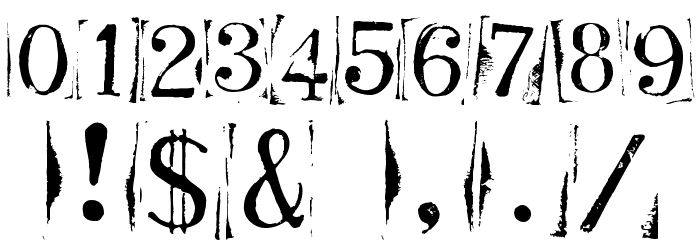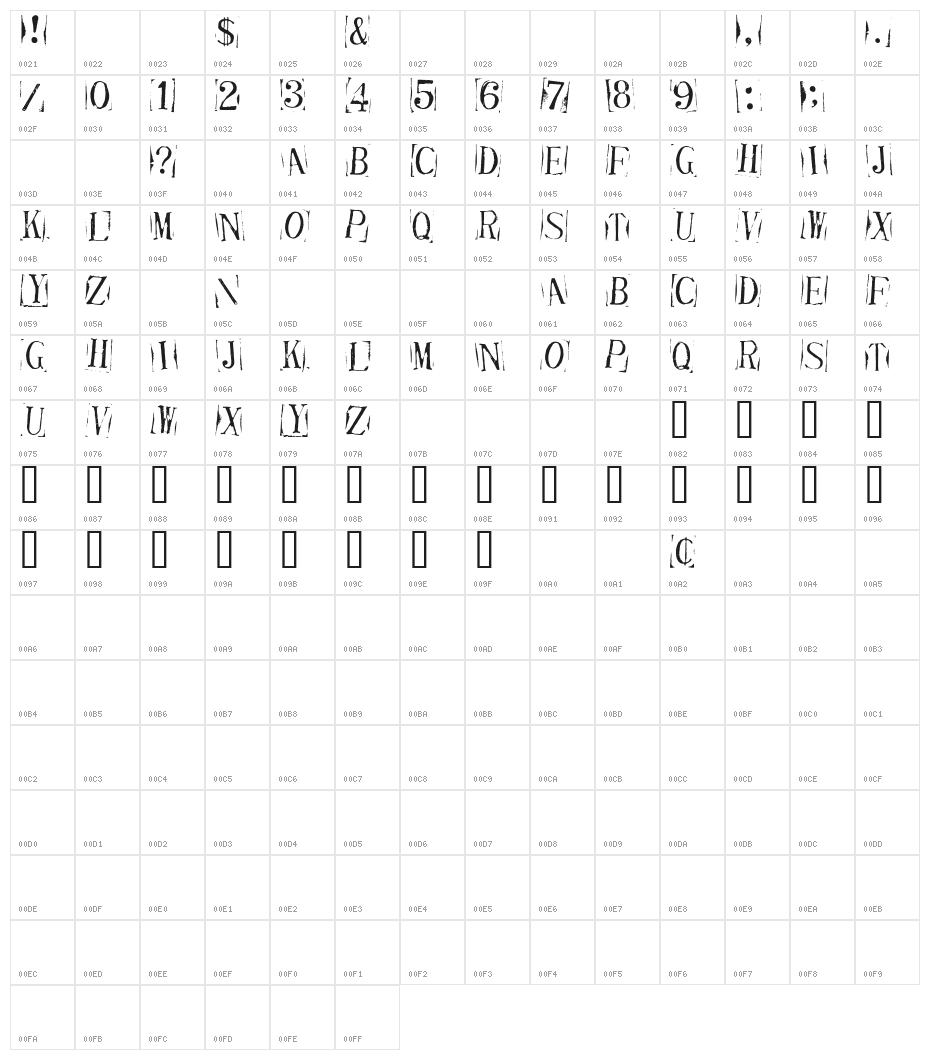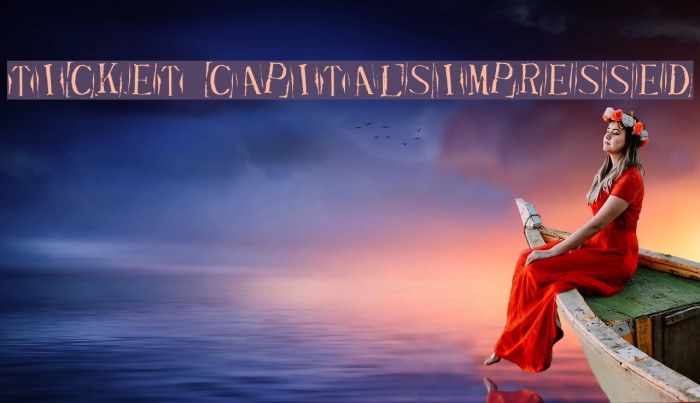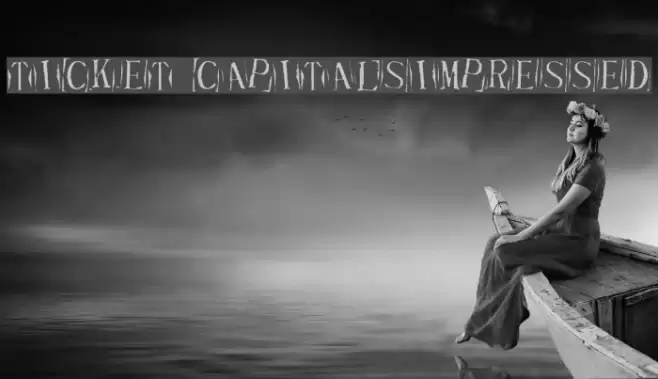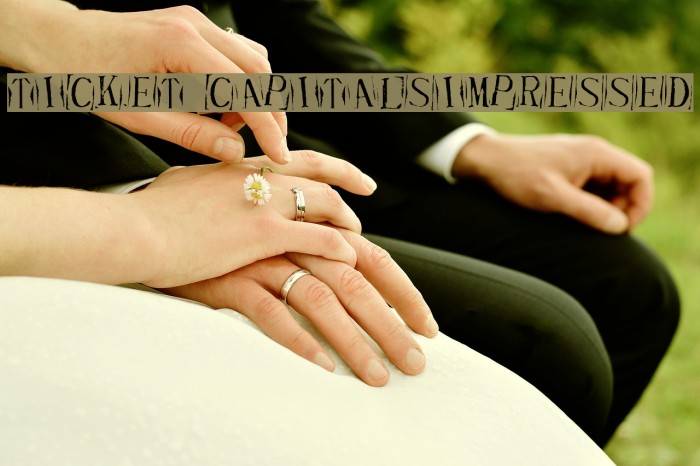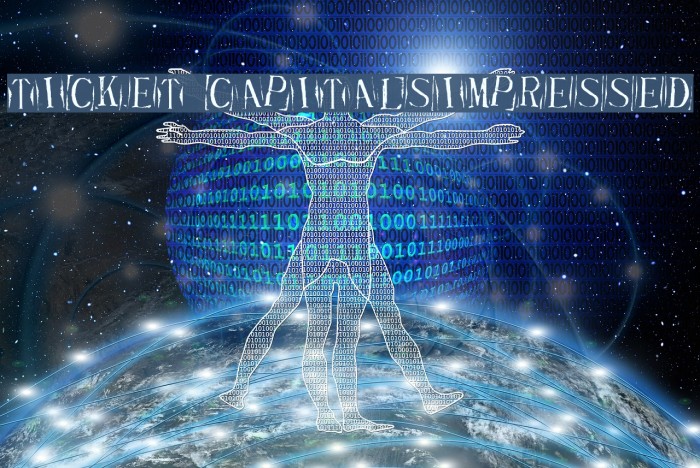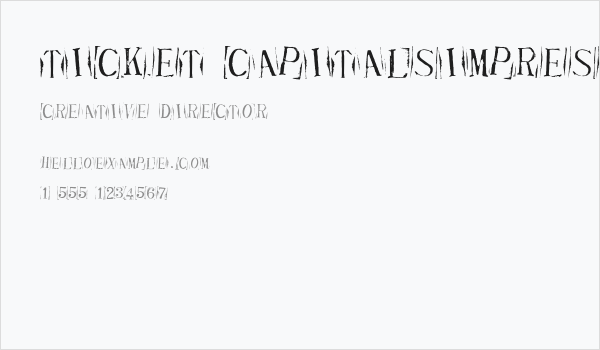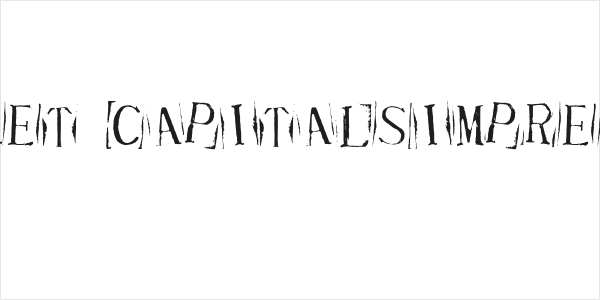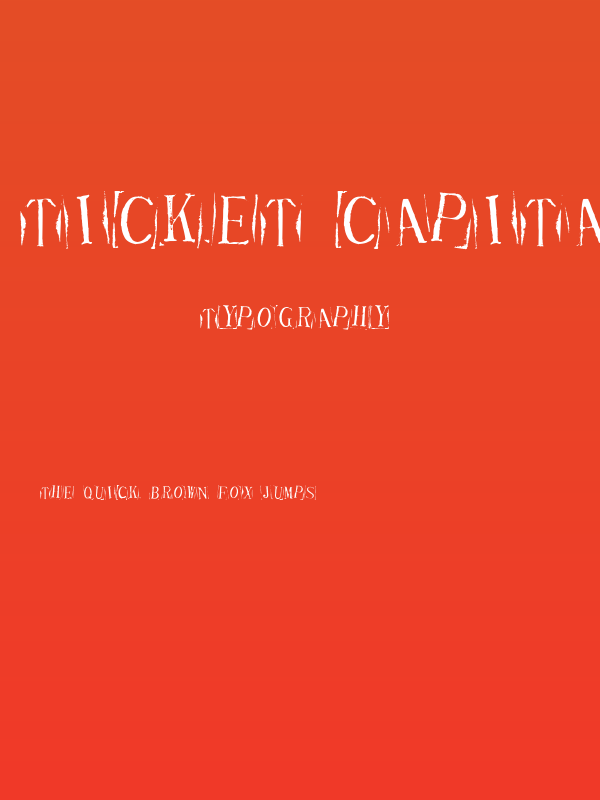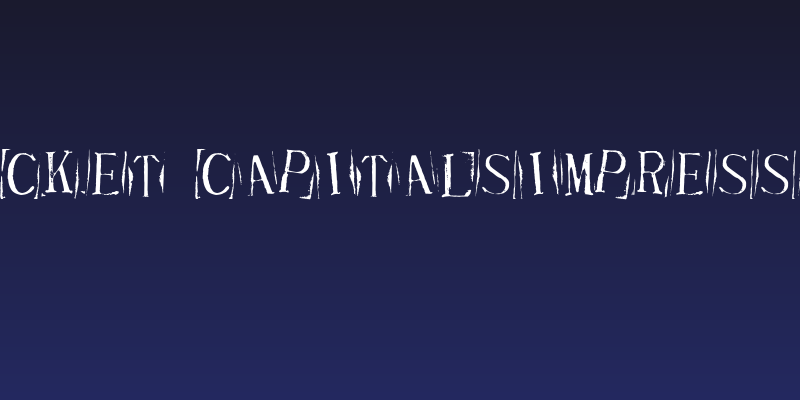
Ticket CapitalsImpressed Font
Ticket CapitalsImpressed Description
This font features a distressed, stencil-like appearance with a vintage, industrial feel. Each character is enclosed in a rectangular frame, giving the impression of being stamped or pressed onto the surface. The letters and numbers are bold and slightly irregular, adding to the rugged and worn aesthetic. The texture within the characters suggests a weathered or aged look, making it ideal for projects that require a retro or grunge style. The font includes uppercase letters, numbers, and a selection of special characters, all maintaining the same distressed and framed design.
| Proposed Projects | Ideal for posters, album covers, branding for vintage or industrial-themed products, and any design requiring a rugged, retro look. |